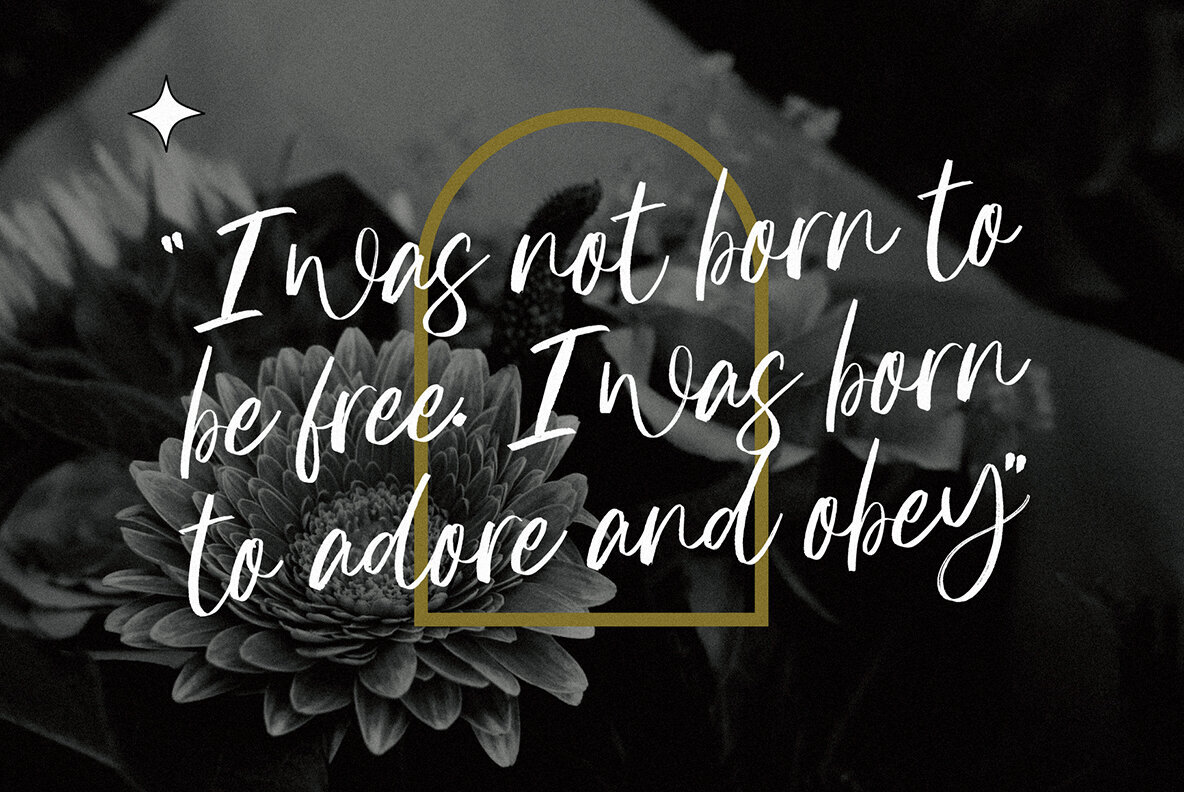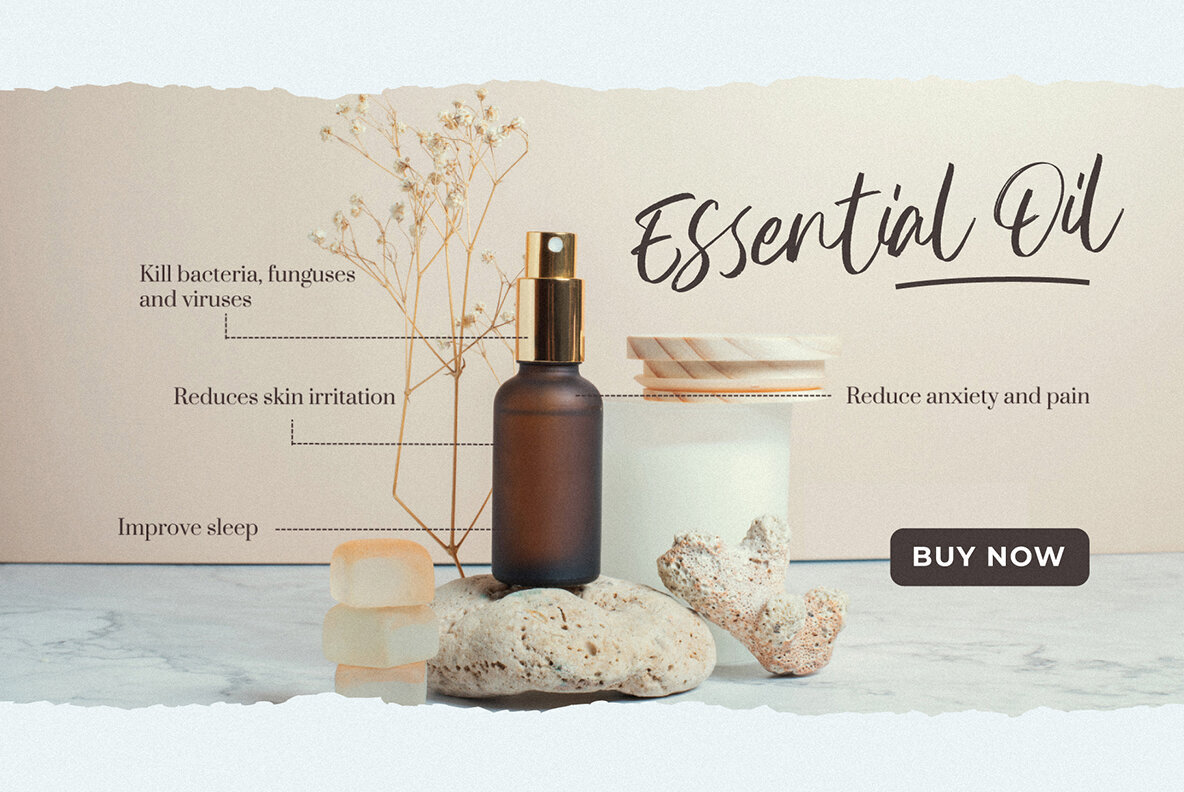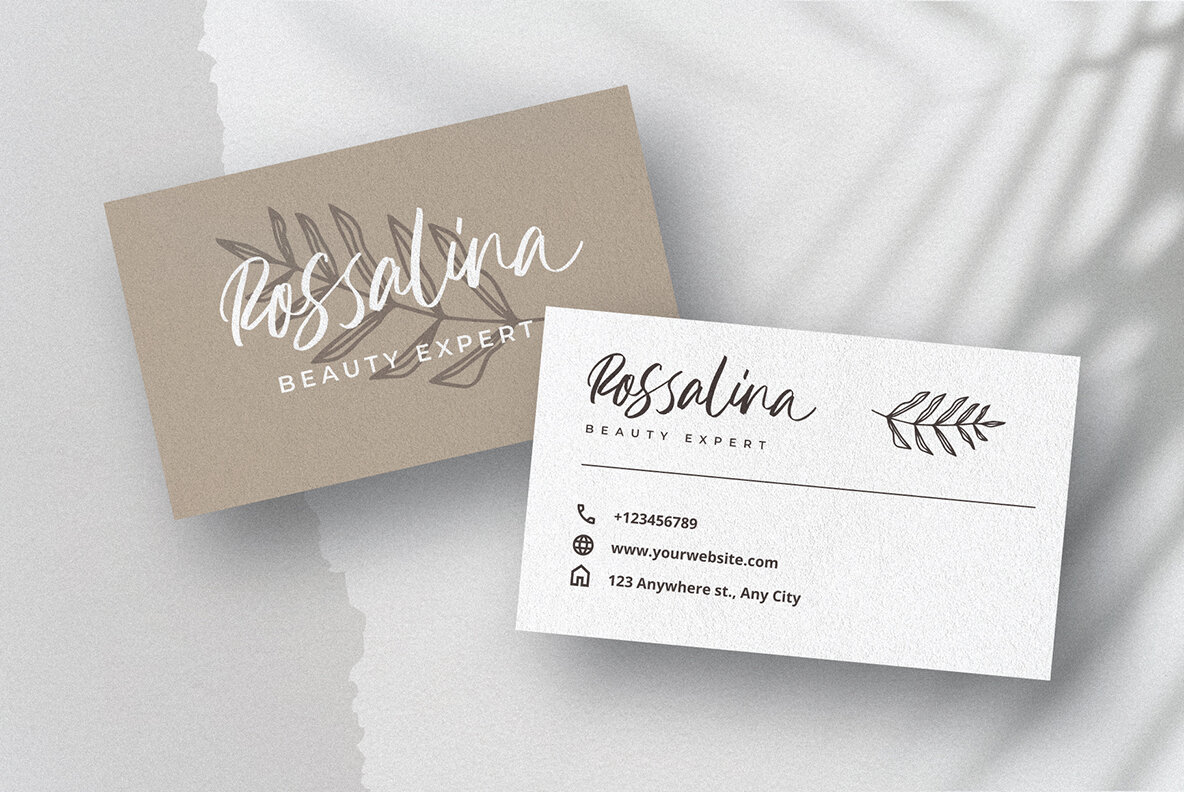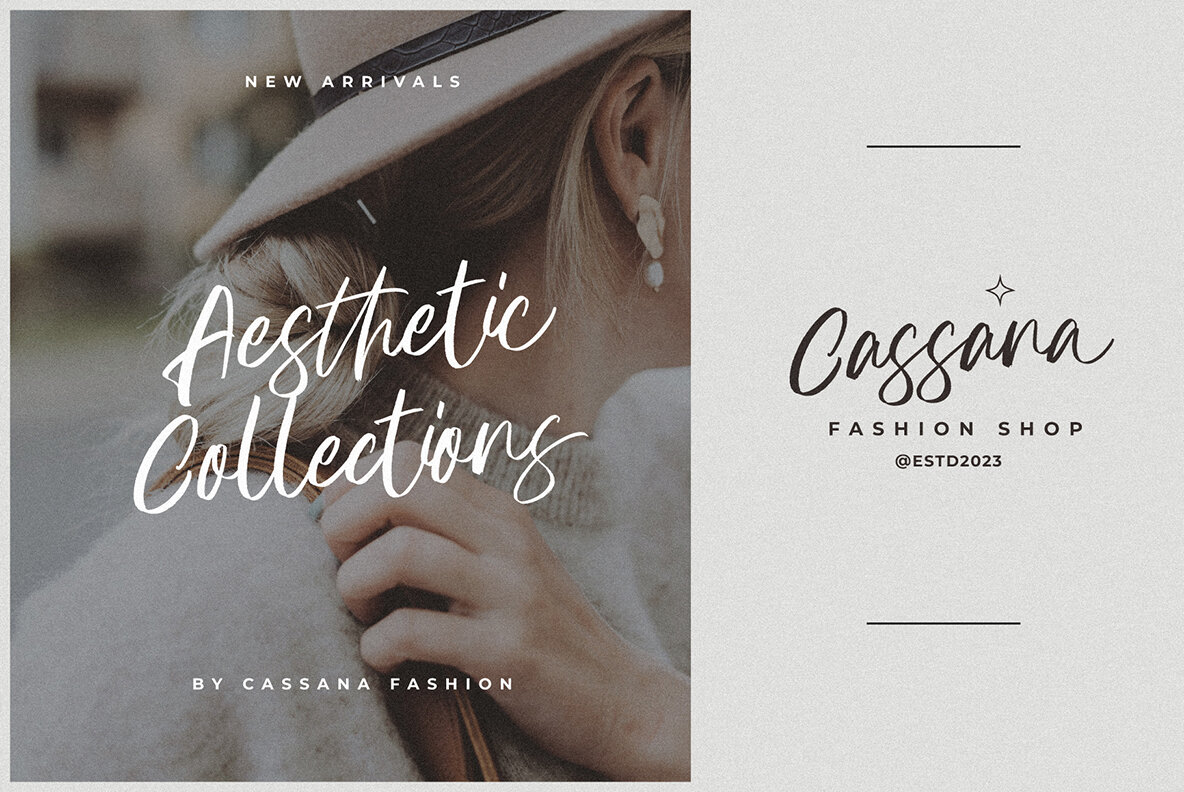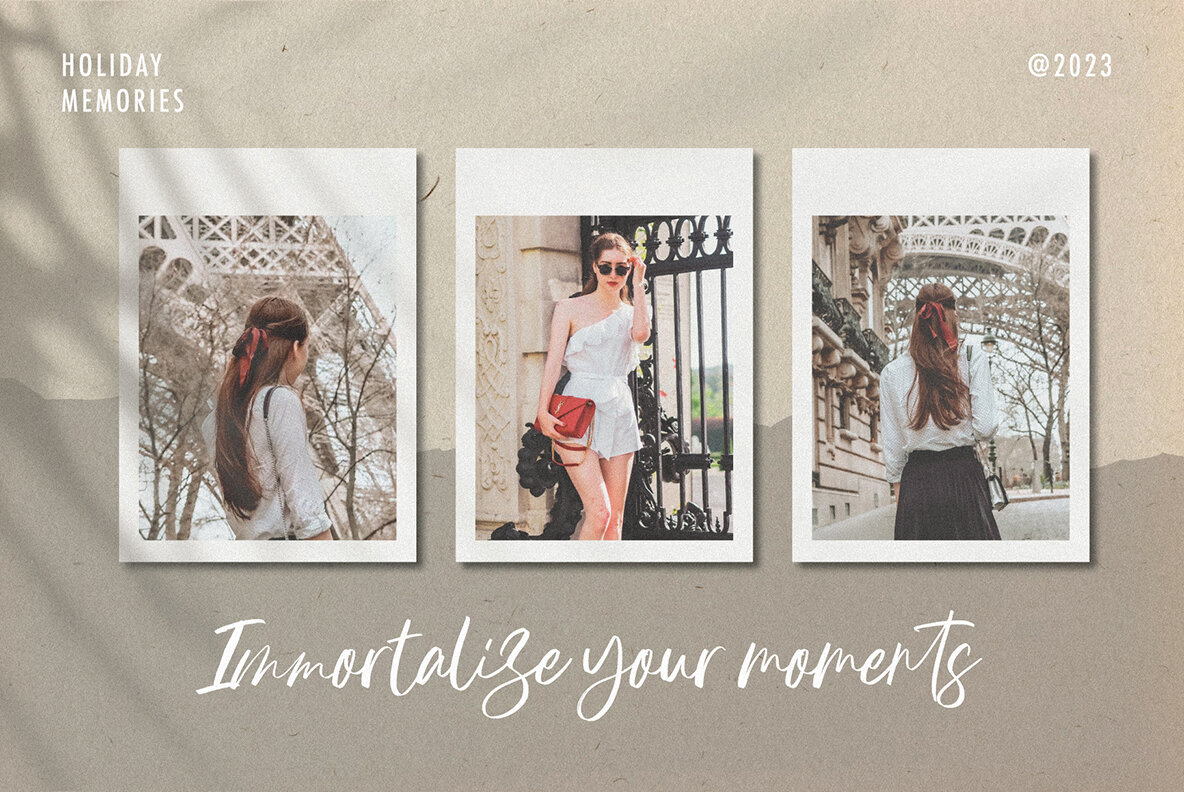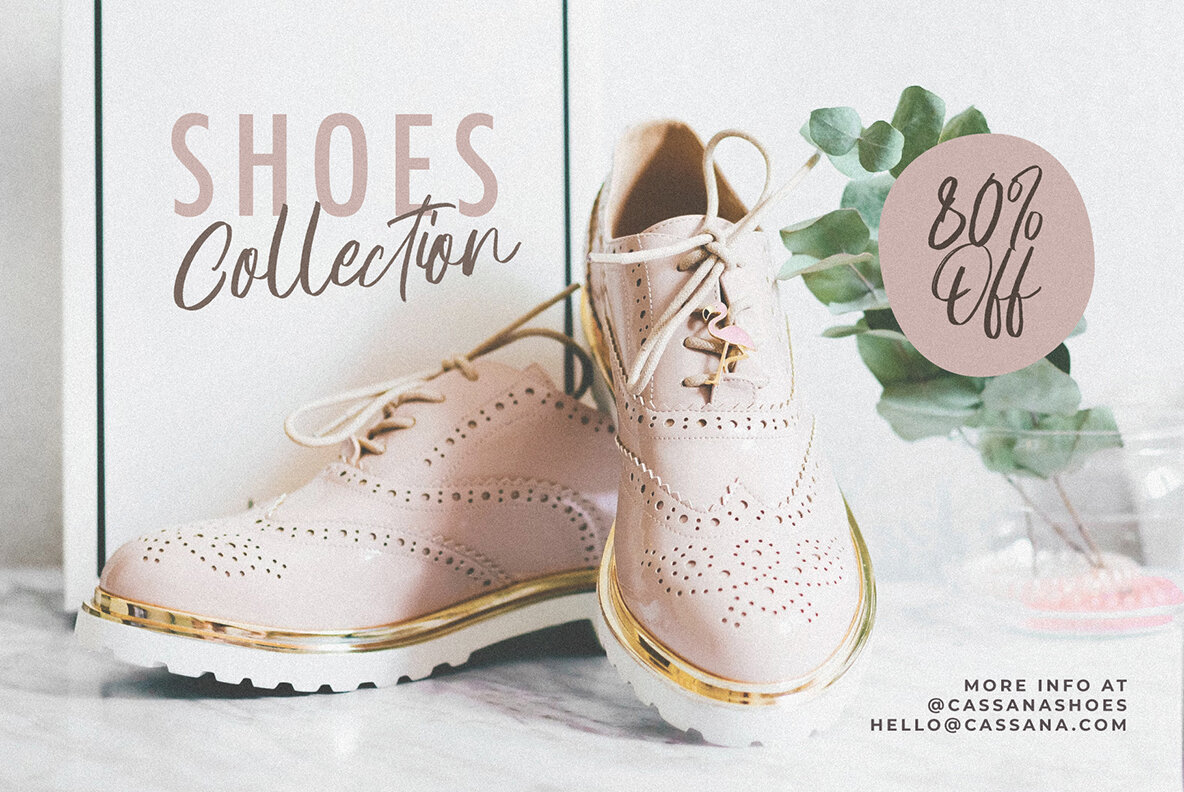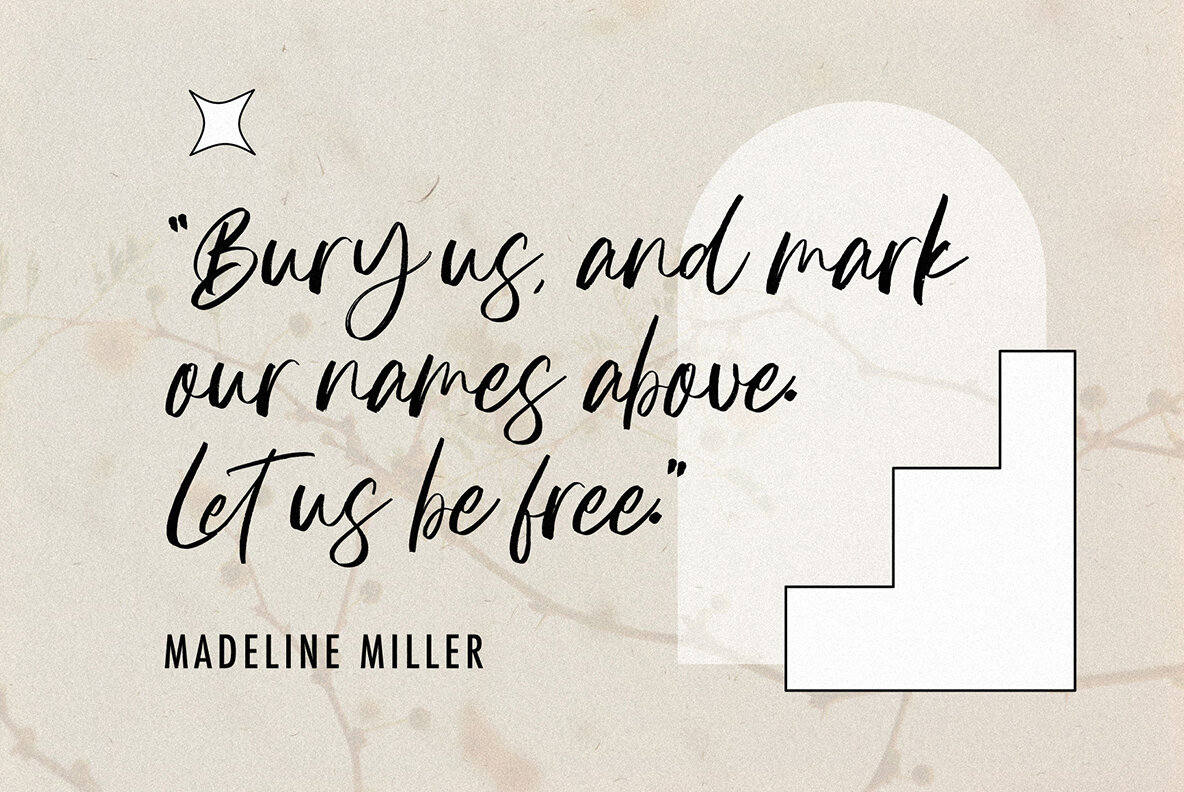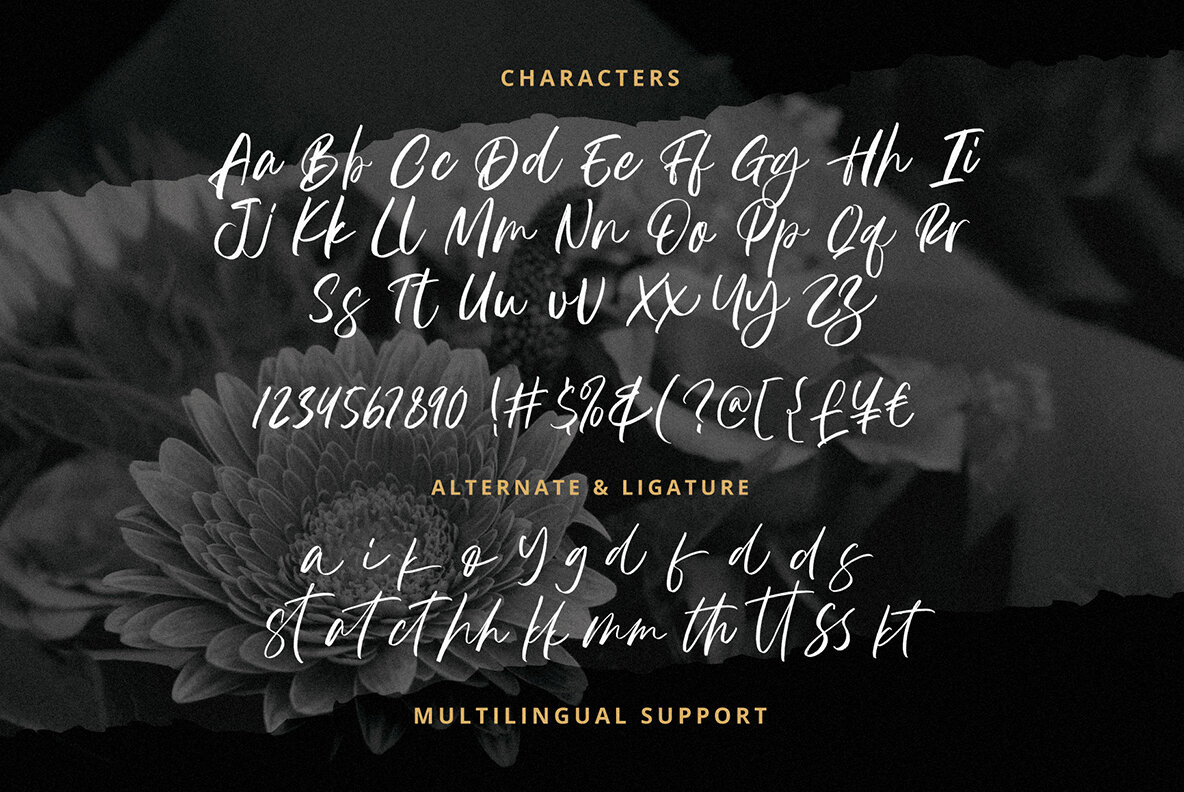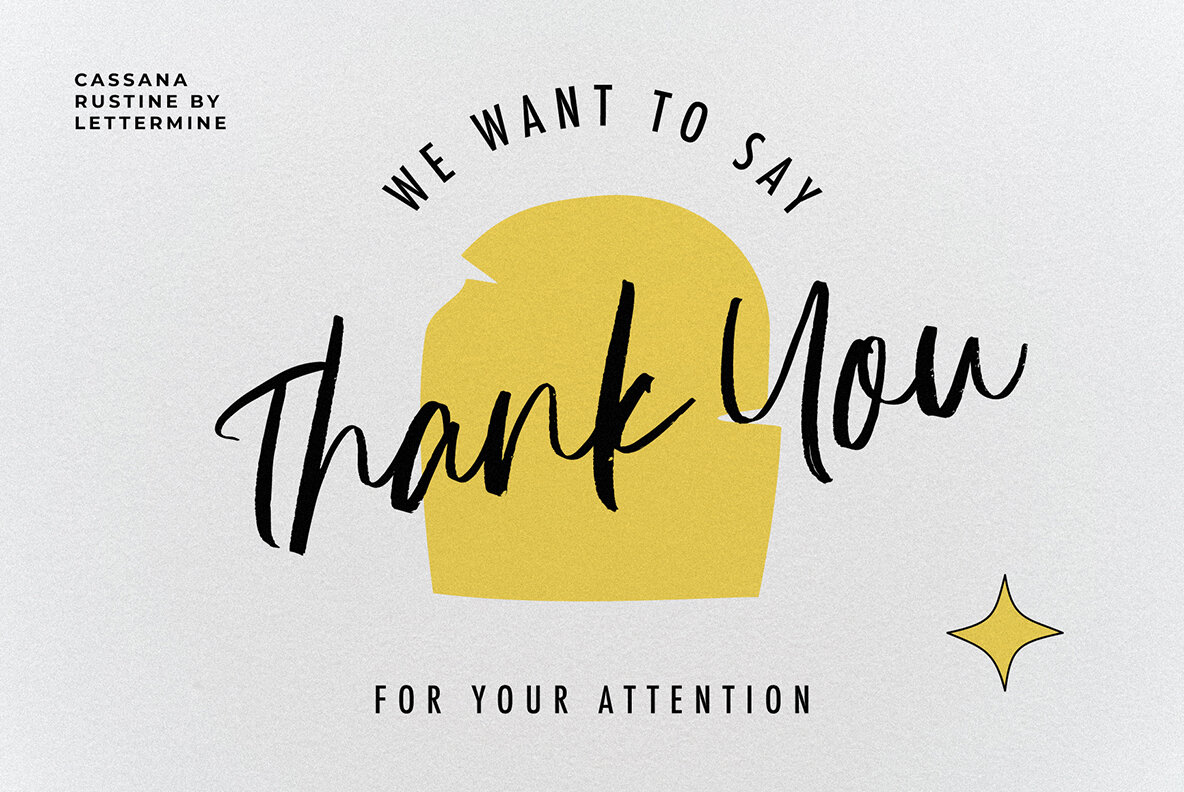
Cassana Rustin Font
Cassana Rustine Regular
A captivating and versatile Elegant Script font designed to add a touch of elegance and modernity to any project. Whether you're designing for the fashion industry, food industry, or various celebratory occasions like weddings, birthdays, or engagements, this font is your perfect companion. With its stylish and contemporary Allcaps Display Serif style, Cassana Rustin - Elegant Script effortlessly captures attention and elevates your designs to new heights. Key Features: